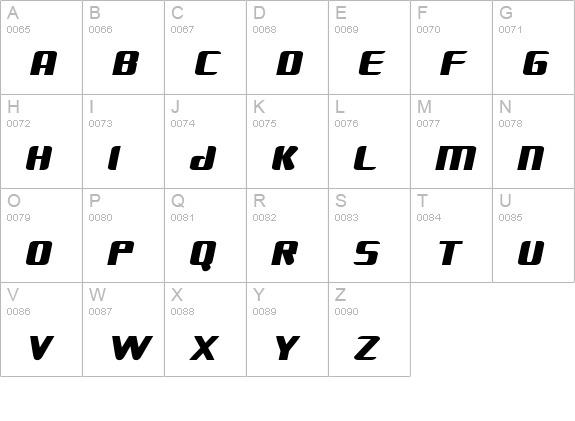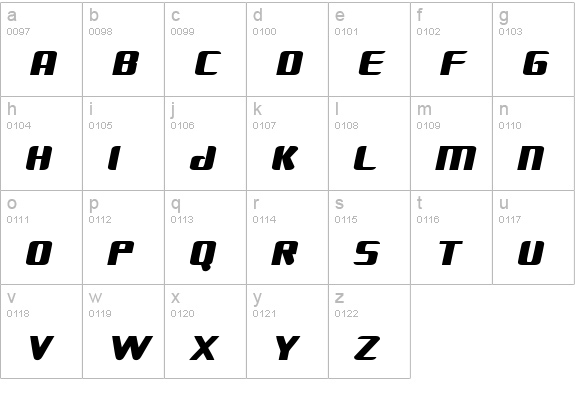
FANTASTIC FOUR MOVIE SLANT Font Details
Introducing the FANTASTIC FOUR MOVIE SLANT font, a remarkable typographic masterpiece that encapsulates the essence of adventure, superheroism, and the indomitable spirit of the Fantastic Four. Designed with meticulous attention to detail, this font exudes a sense of power, dynamism, and excitement, making it the perfect choice for any project that demands an extra touch of extraordinary. With its bold, slanted letterforms, FANTASTIC FOUR MOVIE SLANT font captures the essence of the iconic superhero team, reflecting their courage, determination, and unwavering resolve. Each letter is meticulously crafted, showcasing a unique blend of sharp angles and sleek curves that add an element of modernity to its overall design. The font's distinctive slant adds a sense of movement and energy, taking your designs to new heights. Versatile and adaptable, FANTASTIC FOUR MOVIE SLANT font is ideal for a wide range of creative endeavors. Whether you're designing posters for a thrilling action movie, creating eye-catching headlines for comic books, or crafting attention-grabbing logos for superhero-themed merchandise, this font will undoubtedly leave a lasting impression. And the best part? FANTASTIC FOUR MOVIE SLANT font is available for free download exclusively at FontsMarket.com. That's right, you can freely access this extraordinary font and bring your designs to life without any constraints. So, why wait? Unleash your creativity and embark on a thrilling typographic journey with FANTASTIC FOUR MOVIE SLANT font. Download it now and let your imagination soar!